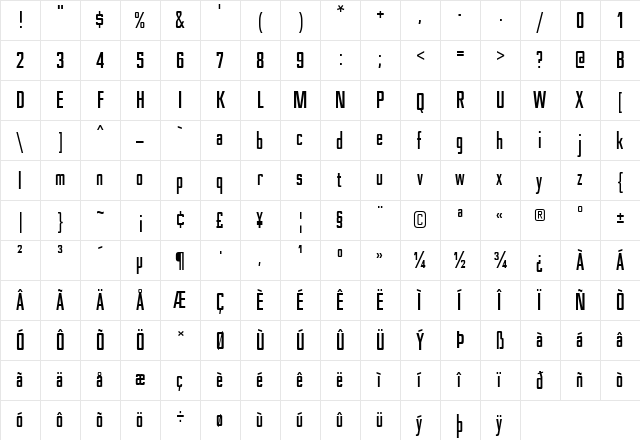
Nesobrite Condensed Bold
Design Context for Nesobrite Typeface
Nesobrite offers clean, dependable letterforms without strong stylistic allegiance, making it a practical choice for designers who need flexibility. The heavy weight commands attention and anchors typographic hierarchies. Its narrow stance lets it pack a punch even in space-constrained designs.